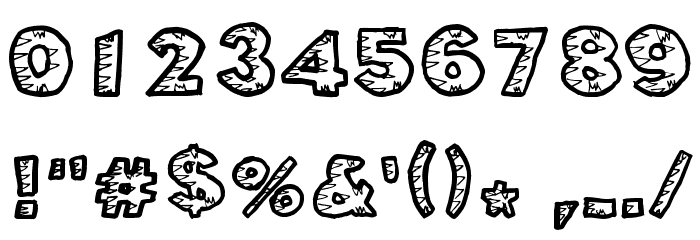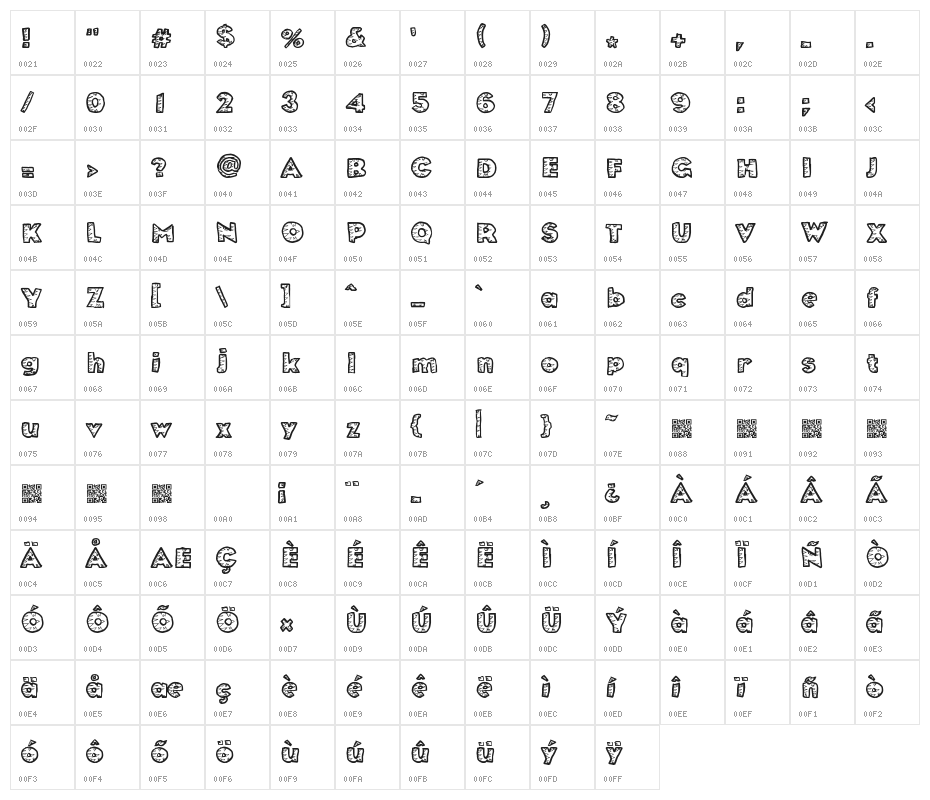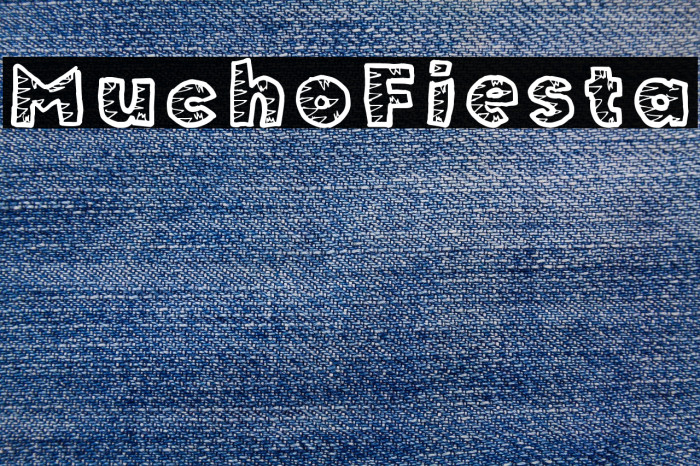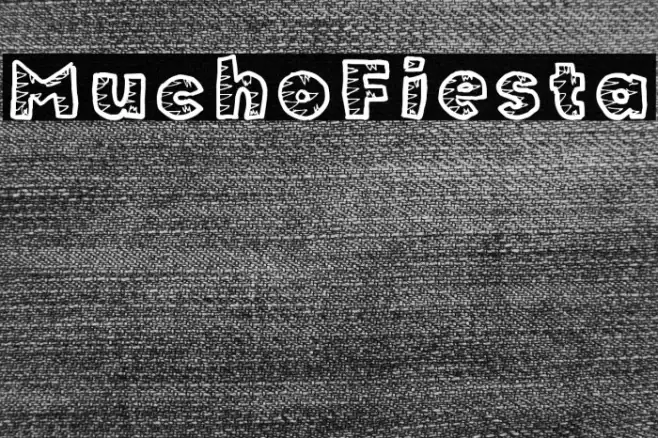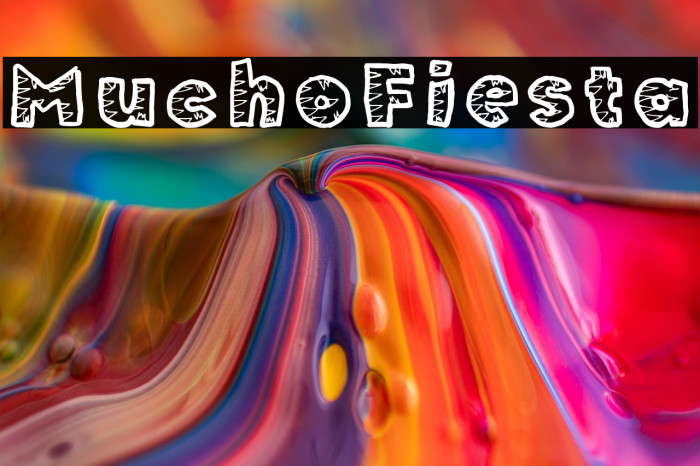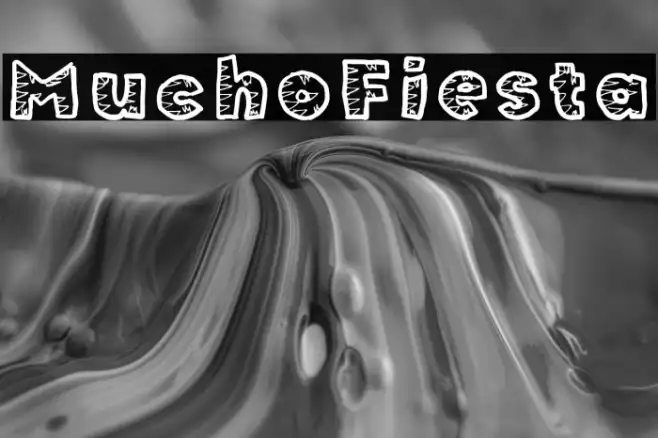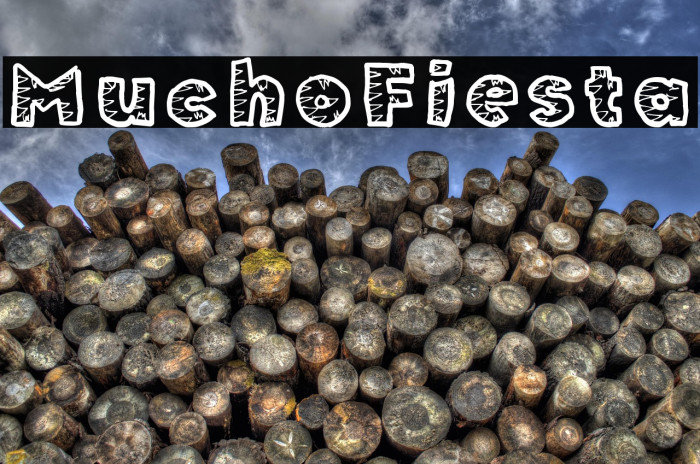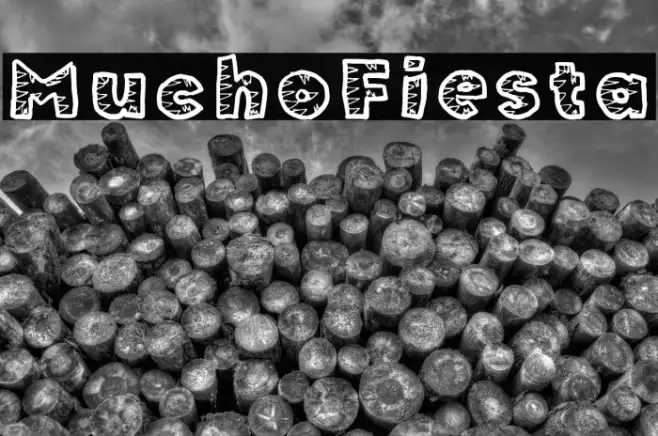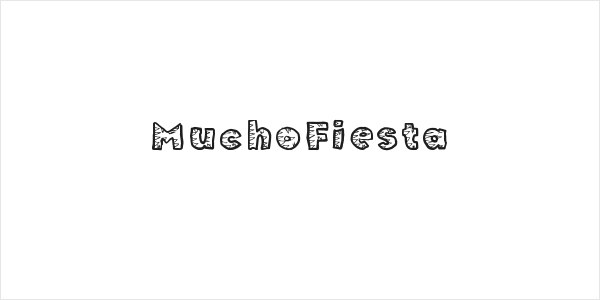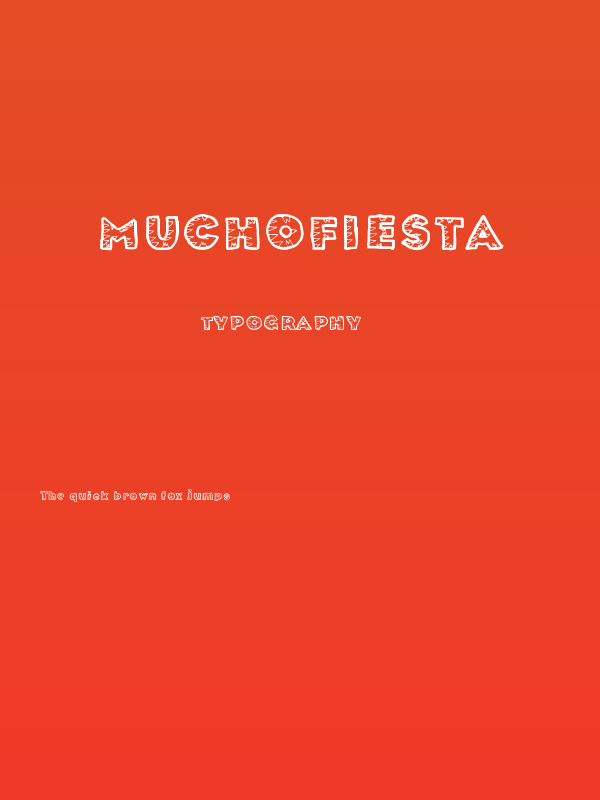
MuchoFiesta Font
MuchoFiesta Description
This font exudes a playful and festive vibe, characterized by its bold, hand-drawn style with intricate patterns filling each letter. The uppercase and lowercase letters maintain a consistent, whimsical appearance, making it ideal for creative and lively projects. The numbers and special characters follow the same decorative theme, ensuring a cohesive look across all text elements. The font's unique design is perfect for capturing attention and adding a fun, energetic touch to any design.
| Overall Style | Playful, Festive, Hand-drawn |
| Proposed Projects | Ideal for party invitations, children's book covers, festive banners, and playful branding. |